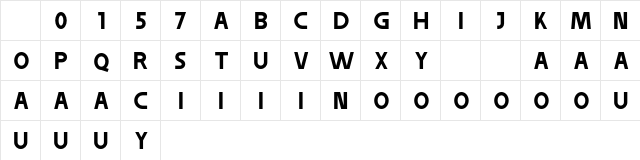
Galgator Free is a composed and adaptable typeface that performs quietly and consistently across a wide range of design contexts. Its bold stroke weight gives it real presence on the page.